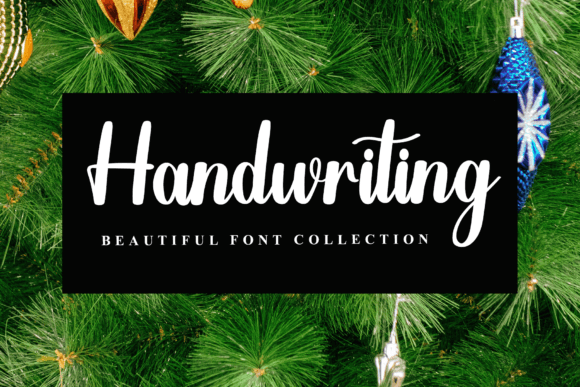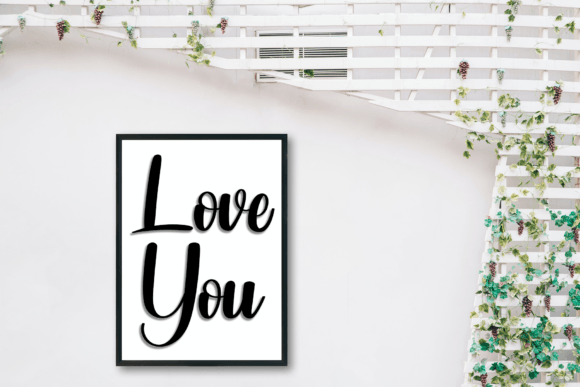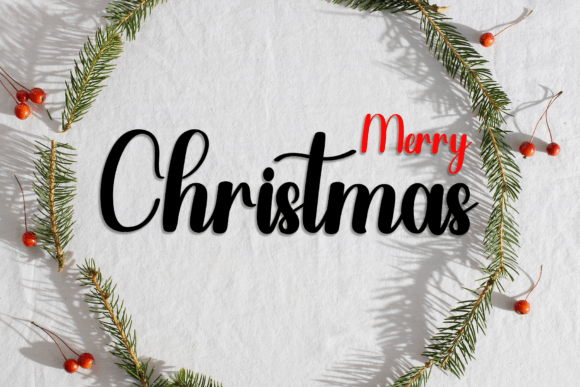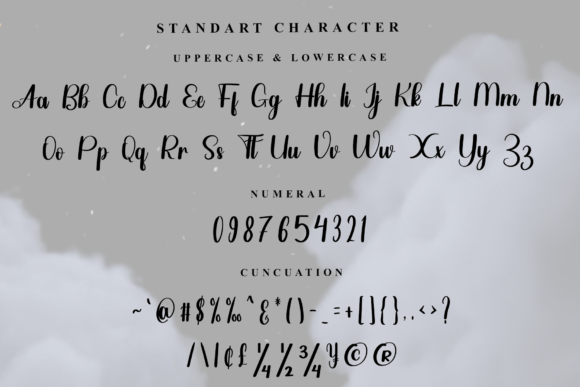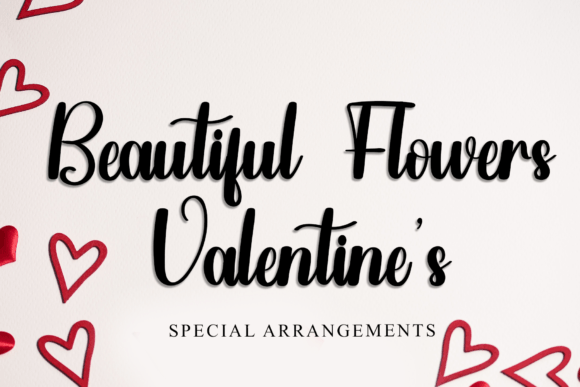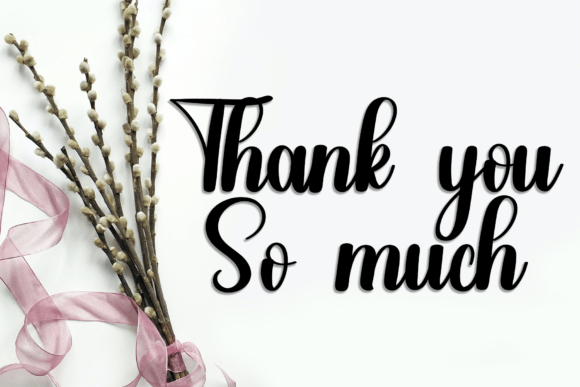
Unwrapping the Magic of First Desember Font
As the holiday season approaches, designers are eager to infuse their creations with a touch of festive cheer. The spark of inspiration strikes when you stumble upon the perfect font to capture the essence of the season. For many, this moment comes when they discover the First Desember Font.
This delightful font is specifically designed to evoke the joy and warmth of the holiday season. With its intricate decorations and unique flair, the First Desember Font adds a charming touch to any design. Perfect for greeting cards, gift labels, and holiday-themed projects, this font brings a cheerful and nostalgic atmosphere to your words. Its PUA coding allows designers to easily access all the amazing glyphs and ligatures, making it a valuable addition to any design toolkit.
First December Font Key Features
- Font Family: First December, a modern script font
- Unique Characteristics: Features a flowing, handwritten style with subtle flourishes and elegant connections between letters
First December Font Review
Overall, I’m quite impressed with the First December Font. It has a unique blend of vintage and modern elements that can add a touch of elegance to any design project. ✨ The font’s irregularities and flourishes give it a humanistic feel, making it perfect for creative and artistic endeavors.
One of the things I appreciate about First December Font is its versatility. It can be used for both headings and body text, and it works well in a variety of contexts, from magazine layouts to social media graphics. ✨ The font’s high contrast and readability make it easy to use even in smaller sizes.
- Unique blend of vintage and modern elements
- Humanistic feel and irregularities add character
- High contrast and readability
- Versatile and suitable for various design projects
- May not be suitable for formal or corporate designs
- Lack of consistency in font weights and styles
- Some glyphs may not be optimized for certain languages
- ⚠️ Can be overwhelming in large blocks of text
Overall, I would highly recommend the First December Font for designers looking for a unique and elegant typeface. While it may have some limitations, its versatility and charm make it a great addition to any design project.
Practical Application Guide for “First December Font”
The “First December Font” is ideal for creating festive and elegant designs for Christmas, winter, or holiday-themed projects. Use it to add a touch of sophistication to your invitations, greeting cards, or social media graphics.
To get the most out of the “First December Font,” experiment with different font sizes, colors, and styles to create a unique and eye-catching design. Pair it with complementary fonts and graphics to add depth and visual interest to your project.